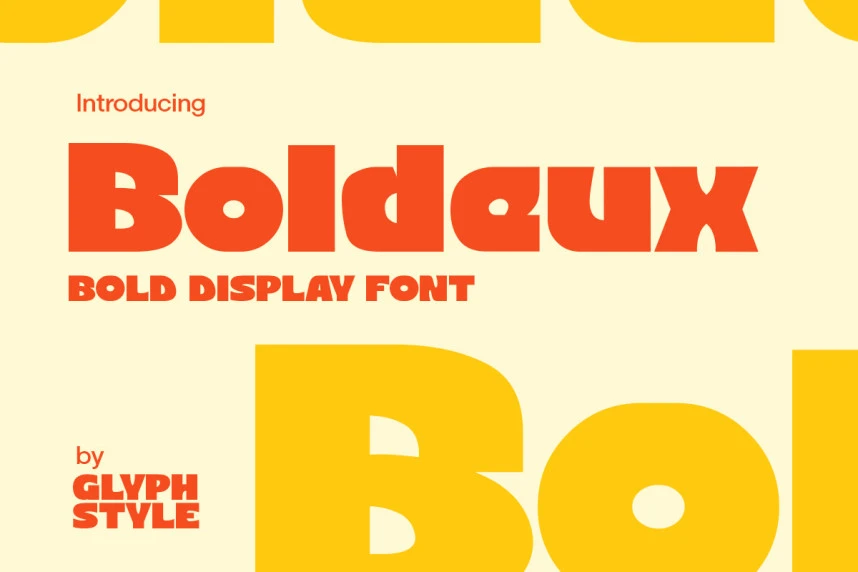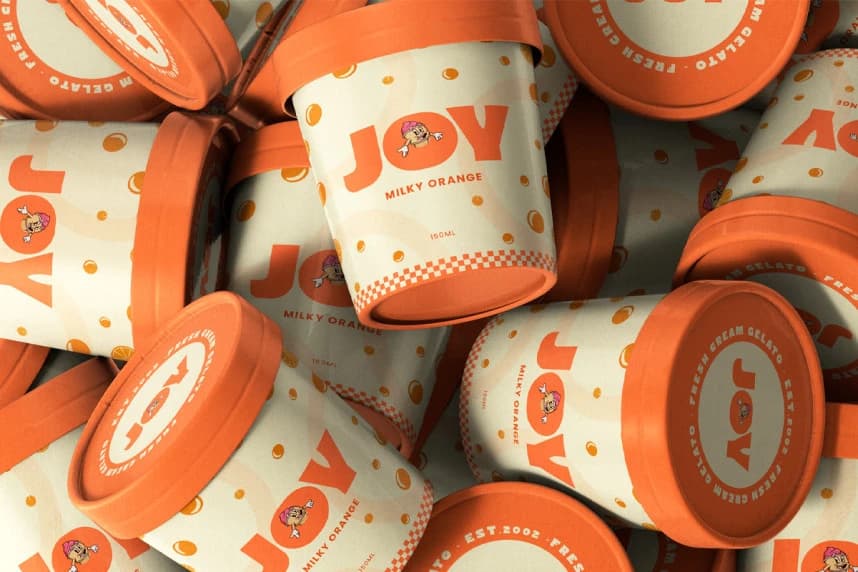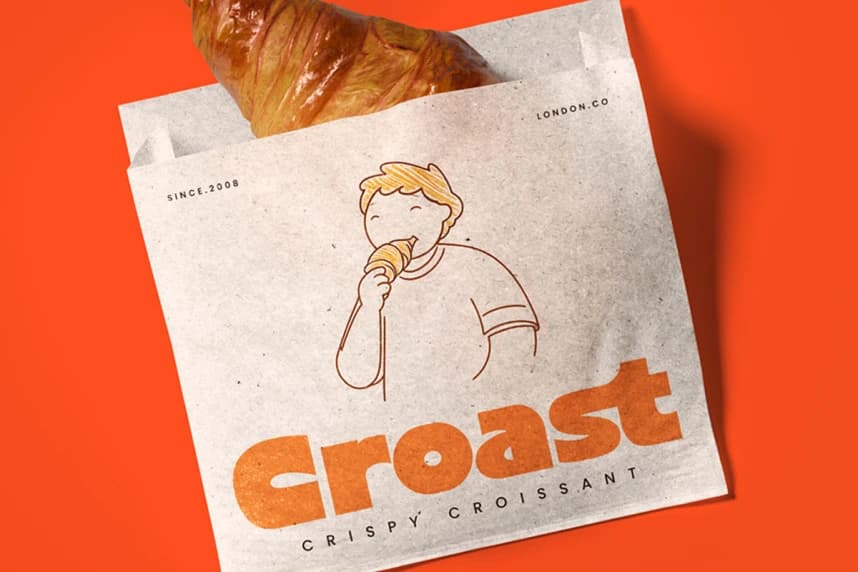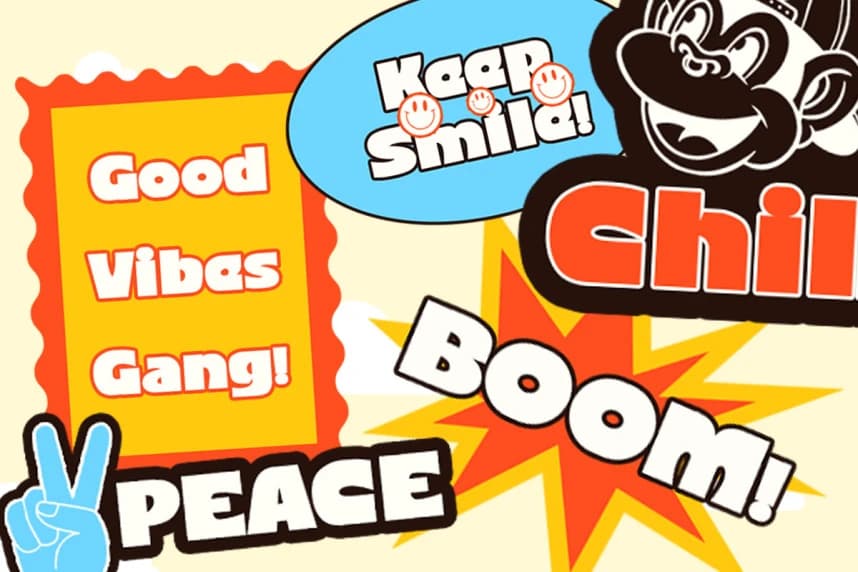
Boldeux Font
Boldeux Font is a bold display font with a playful retro vibe and strong visual impact. Featuring chunky letterforms, smooth curves, and unique character cuts, this font is designed to grab attention instantly.